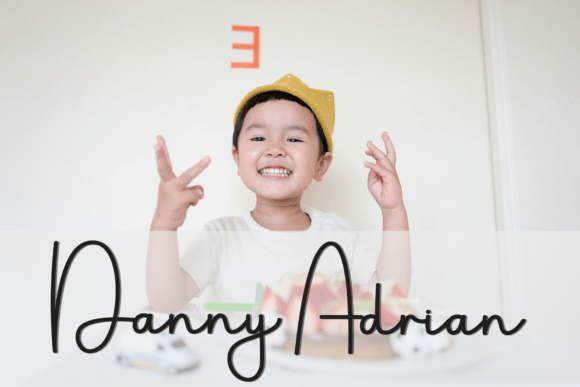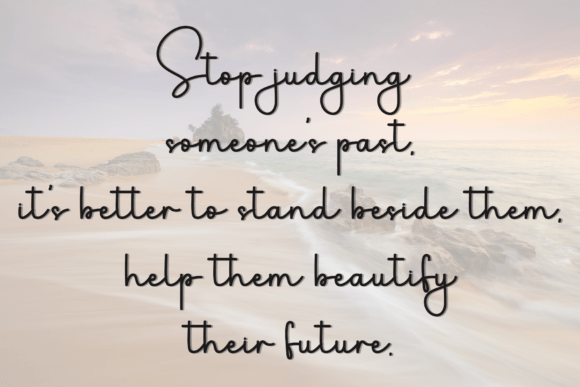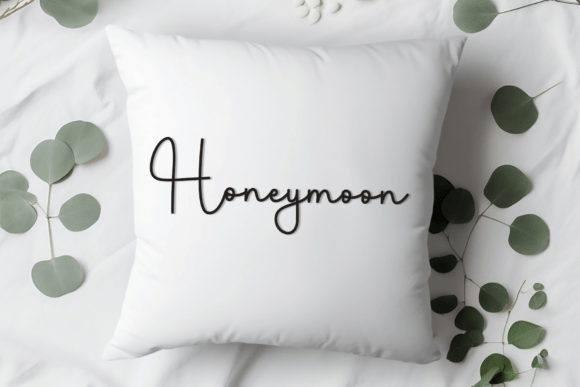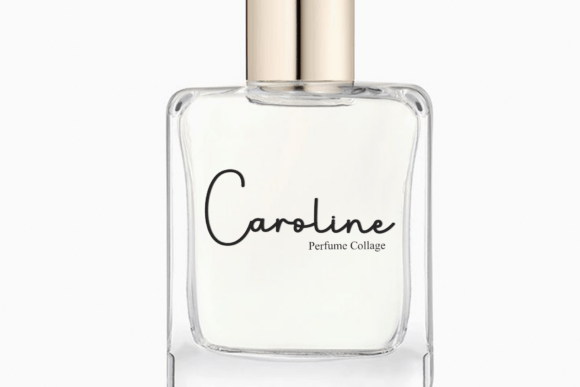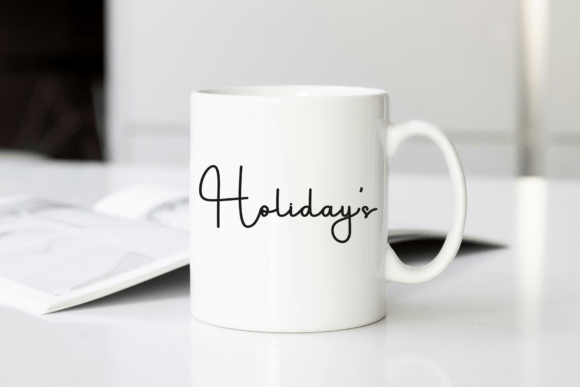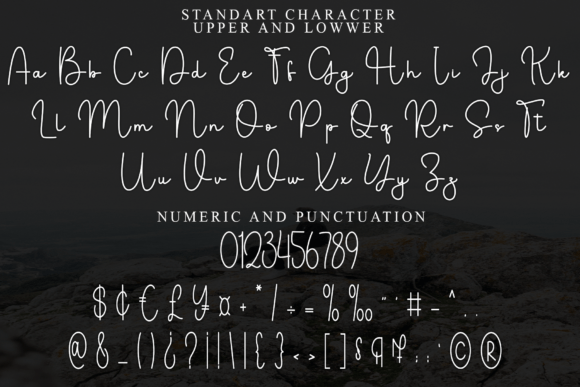
Introducing Cuties Girlfriend Font: The Perfect Addition to Your Design Projects
Are you tired of using the same old fonts in your design projects? Look no further! Cuties Girlfriend Font is a beautiful and eye-catching font that is sure to take your designs to the next level. With its soft, unique touch and distinctive strokes, this font is perfect for designers, crafters, and creative professionals looking to add a special touch to their work.
A Font Like No Other
Cuties Girlfriend Font is a one-of-a-kind font that is designed to make your designs stand out. Its soft and unique touch gives it a special character that is sure to capture the attention of your audience. The font’s distinctive strokes add a touch of elegance and sophistication, making it perfect for a wide range of design projects, from crafts and DIY projects to professional designs and branding.
One of the best things about Cuties Girlfriend Font is its versatility. With a wide range of characters, this font is perfect for a variety of design projects, including:
- Design projects: Use Cuties Girlfriend Font to add a personal touch to your designs, from brochures and flyers to posters and banners.
- Crafts: Add a touch of elegance to your crafts, from handmade cards and invitations to scrapbooking and journaling.
- Branding: Use Cuties Girlfriend Font to create a unique and memorable brand identity that will set you apart from the competition.
A Natural Font Style
Cuties Girlfriend Font is a natural font style that is perfect for designers and crafters who want to add a touch of warmth and personality to their designs. The font’s soft and unique touch gives it a organic feel that is sure to resonate with audiences across different artistic and creative fields.
Enhance Your Designs
With Cuties Girlfriend Font, you can enhance your designs and make them more appealing to your audience. The font’s distinctive strokes and soft touch add a touch of elegance and sophistication, making it perfect for a wide range of design projects. Whether you’re a professional designer or a crafter, Cuties Girlfriend Font is sure to take your designs to the next level.
Perfect for a Wide Range of Products
Cuties Girlfriend Font is perfect for a wide range of products, from:
- Stationery and paper products: Use Cuties Girlfriend Font to create beautiful and unique stationery, from greeting cards and invitations to journals and notebooks.
- Fabric and textile products: Add a touch of elegance to your fabric and textile products, from clothing and accessories to home decor and linens.
- Digital products: Use Cuties Girlfriend Font to create beautiful and unique digital products, from ebooks and printables to social media graphics and web design.
In conclusion, Cuties Girlfriend Font is a beautiful and eye-catching font that is perfect for designers, crafters, and creative professionals looking to add a special touch to their work. With its soft, unique touch and distinctive strokes, this font is sure to take your designs to the next level. Its versatility, compatibility, and ease of use make it perfect for a wide range of design projects, from crafts and DIY projects to professional designs and branding.